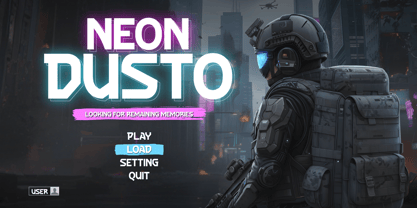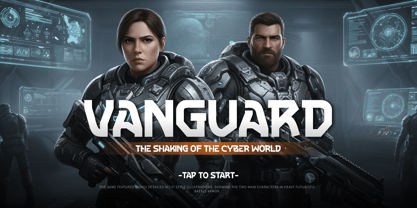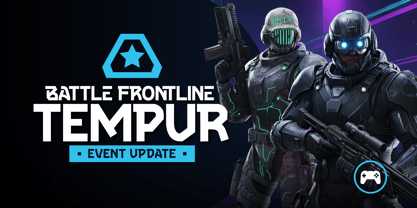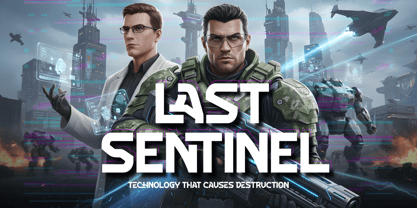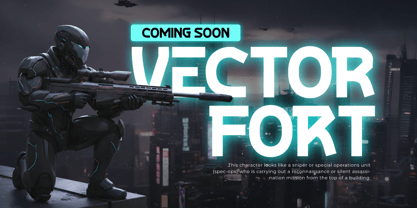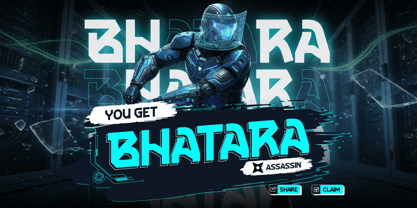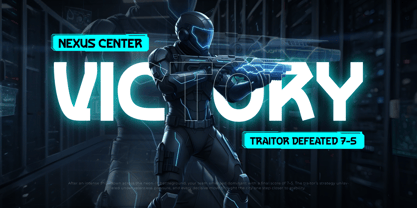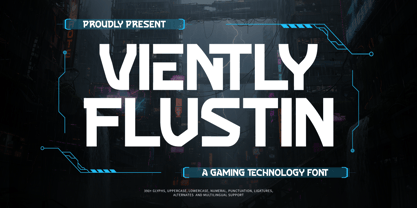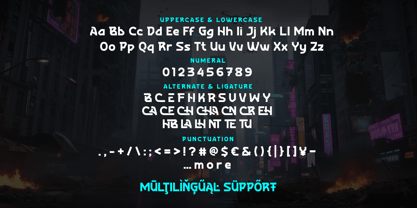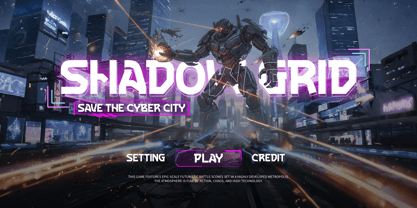
Viently Flustin is a Gaming Technology Font typeface featuring a futuristic aesthetic with a strong geometric approach. Inspired by military interfaces and digital battle arenas, this font is designed to deliver a firm visual impact for Action FPS game titles. Its solid letterform characteristics are perfectly suited for visual identities that prioritize high-tech and tactical precision.
The font's design structure adopts Military Sci-Fi elements with sharp edges and balanced proportions to ensure optimal readability. This makes Viently Flustin highly functional for Futuristic Weapon UI needs, heads-up display (HUD) graphics, and cinematic poster designs. Every angle of the letters reflects consistent technical detail, helping designers create a modern and immersive cyber-world atmosphere.
As a Shooter Game Technology Font, Viently Flustin offers a professional typography solution for game developers and digital content creators. The font supports large-scale usage for esports branding and tech promotional materials requiring a strong character. With its clean and firm structure, Viently Flustin is a reliable asset for strengthening visual hierarchy in design projects themed around future innovation and action.
- Fonts include Multilingual: Support for 85 languages
Afrikaans, Albanian, Asu, Basque, Bemba, Bena, Breton, Catalan, Chiga, Cornish, Croatian, Czech, Danish, Dutch, Embu, English, Esperanto, Estonian, Filipino, Finnish, French, Friulian, Galician, Gusii, Hungarian, Indonesian, Irish, Italian, Kabuverdianu, Kalenjin, Kamba, Kikuyu, Kinyarwanda, Latvian, Lithuanian, Lower, Sorbian, Luo, Luxembourgish, Luyia, Machame, Makhuwa-Meetto, Makonde, Malagasy, Maltese, Manx, Meru, Morisyen, North, Ndebele, Norwegian Bokmål, Norwegian Nynorsk, Nyankole, Oromo, Polish, Portuguese, Quechua, Romanian, Romansh, Rombo, Rundi, Rwa, Samburu, Sango, Sangu, Scottish, Gaelic, Sena, Serbian, Shambala, Shona, Slovak, Slovenian, Soga, Somali, Spanish, Swahili, Swedish, Swiss German, Taita, Teso, Turkish, Upper Sorbian, Uzbek (Latin), Volapük, Vunjo, Walser, Zulu.
Viently Flustin